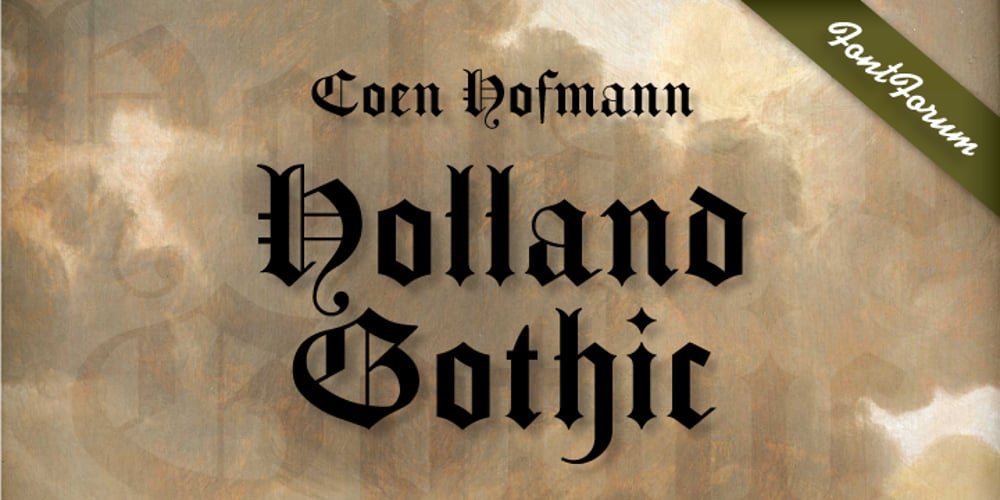
Holland Gothic
Holland Gothic font
Holland Gothic Font Family was designed by Coen Hofmann and published by URW Type Foundry. Holland Gothic contains 1 styles and family package options. Blackletter fonts are timelessly beautiful and still very popular. At some point, it seems that every type designer discovers the beauty of these forms and the great pleasure in creating blackletter characters. Like also Dutch designer Coen Hofmann who, after designing Caxtonian Gothic, has designed yet another Blackletter font: Holland Gothic. Holland Gothic reminds of the 18th century »Duytsch« typefaces of Joan Michael Fleischmann and Christoffel Van Dyck. But Hofmann was mainly inspired by the Dutch calligraphers from the 17th and 18th century. Holland Gothic develops its full charm and beauty at larger sizes because of the hairlines in the upper case characters. To enable users composing texts in the style of our ancestors, Coen Hofmann added a series of pre-composed ligatures, also in combination with the long s, plus an alternate form for the lower case r which was used in combination with letters b, d, g, o, p, v, and w.